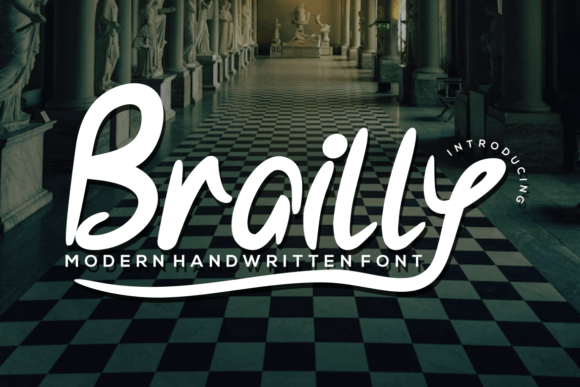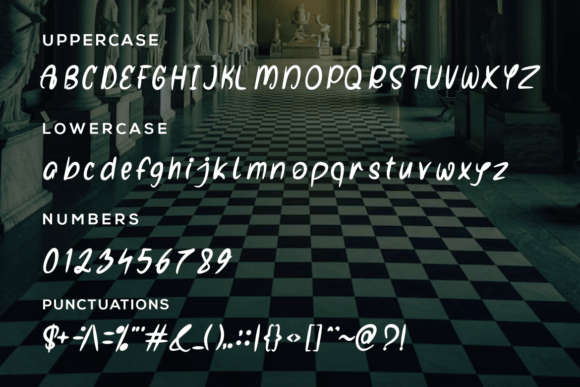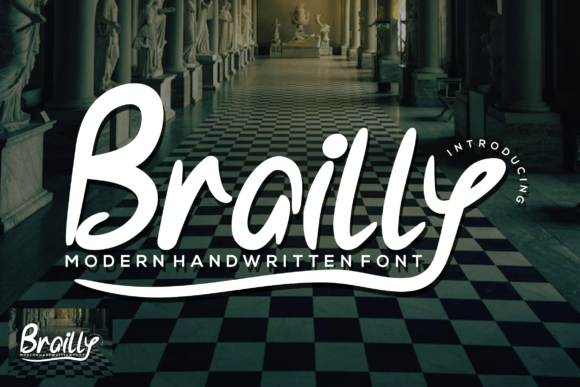
Brailly Font: The Ultimate Handwritten Font for Designers and Crafters
In the world of typography, fonts play a crucial role in conveying the tone and personality of a design. For designers, crafters, and DIY enthusiasts, finding the perfect font can be a daunting task. However, if you’re looking for a stylish yet casual handwritten font that can elevate your designs, look no further than Brailly Font. In this article, we’ll explore the features, benefits, and uses of Brailly Font, and why it’s about to become your new favorite go-to font.
What is Brailly Font?
Brailly Font is a beautiful, handwritten font that exudes a sense of casual elegance. Its unique, cursive style makes it perfect for a wide range of design applications, from digital designs and presentations to crafts, greeting cards, and more. Whether you’re a professional designer or a DIY enthusiast, Brailly Font is sure to impress with its versatility and charm.
Features of Brailly Font
So, what makes Brailly Font so special? Here are some of its key features:
- Stylish yet casual: Brailly Font strikes the perfect balance between style and casualness, making it suitable for both formal and informal designs.
- Handwritten: The font’s handwritten style gives it a personal touch, adding warmth and character to your designs.
- Versatile: Brailly Font can be used for a wide range of design applications, from digital designs and presentations to crafts, greeting cards, and more.
- Easy to read: Despite its cursive style, Brailly Font is easy to read, making it perfect for body text and headings.
Uses of Brailly Font
Brailly Font is an incredibly versatile font that can be used for various design projects. Here are some ideas to get you started:
- Crafts: Use Brailly Font to add a personal touch to your craft projects, such as scrapbooking, card making, and journaling.
- Digital design: Brailly Font is perfect for digital designs, including social media graphics, blog posts, and website headers.
- Presentations: Add a touch of elegance to your presentations with Brailly Font, making them more engaging and memorable.
- Greeting cards: Create beautiful, handmade greeting cards with Brailly Font, perfect for special occasions.
Why Choose Brailly Font?
With so many fonts available, why choose Brailly Font? Here are some reasons why Brailly Font stands out:
- Unique style: Brailly Font has a unique, handwritten style that sets it apart from other fonts.
- High-quality: Brailly Font is a high-quality font that is designed to produce crisp, clear text.
Tips for Using Brailly Font
To get the most out of Brailly Font, here are some tips to keep in mind:
- Experiment with sizes: Brailly Font looks great in various sizes, from small body text to large headings.
- Pair with other fonts: Try pairing Brailly Font with other fonts to create interesting and dynamic designs.
- Use for emphasis: Use Brailly Font to add emphasis to important text, such as headings and titles.
In conclusion, Brailly Font is a stylish yet casual handwritten font that is perfect for designers, crafters, and DIY enthusiasts. Its unique style, versatility, and ease of use make it an excellent addition to any design project. Whether you’re creating digital designs, crafts, presentations, or greeting cards, Brailly Font is sure to become your new favorite go-to font. So why wait? Give Brailly Font a try today and elevate your designs to the next level!